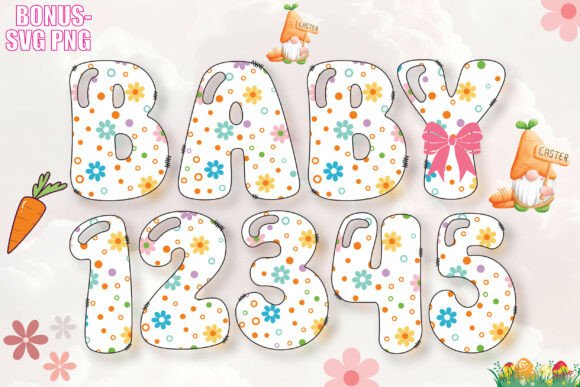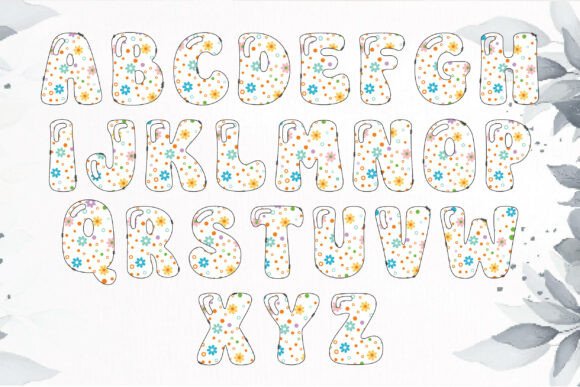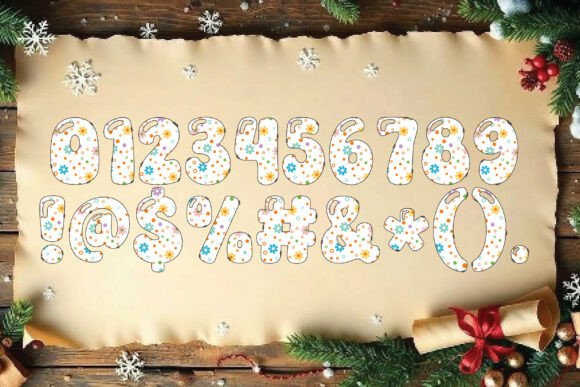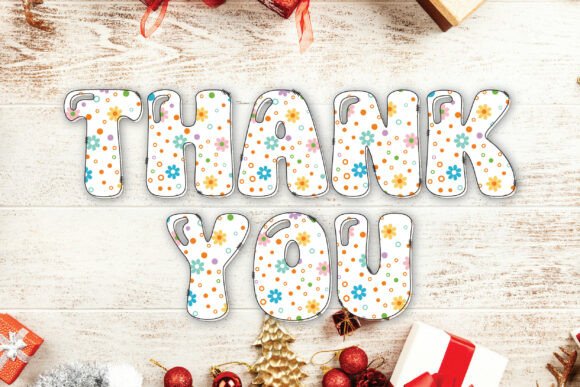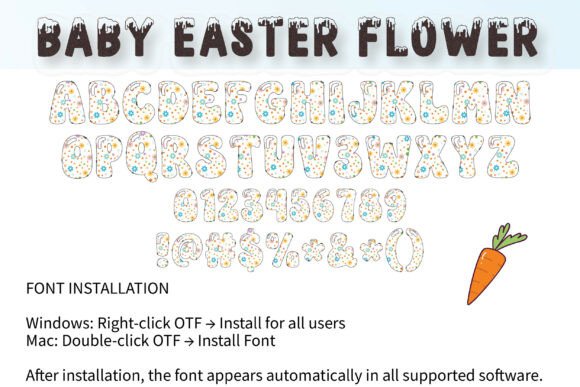
Spring into Easter Magic with the Baby Easter Flower Font
As the Easter season approaches, I find myself browsing through my stash of floral decorations and crafting supplies, searching for the perfect way to infuse my designs with a touch of springtime charm. It’s in these moments that I stumble upon the perfect tool to bring my creative vision to life – a beautiful font that captures the essence of the season. Enter the Baby Easter Flower Font, a delightful alphabet designed to add a soft, floral touch to your Easter projects.
This font is more than just a pretty face; it’s a valuable asset for designers looking to create sweet and elegant holiday designs. With its delicate flower details and spring-inspired style, the Baby Easter Flower Font is perfect for kids’ outfits, Easter invitations, spring decor, printable crafts, planners, and sublimation projects. Whether you’re a seasoned designer or a crafty enthusiast, this font is sure to bring a smile to your face and a touch of magic to your creations.
- Font Family: Baby Easter Flower, a unique, hand-drawn font designed to resemble Easter flowers.
- Character Count: Approximately 550 characters, including uppercase and lowercase letters, numbers, and punctuation.
- Unique Characteristics: The font features delicate, hand-drawn Easter flower motifs, intricate details, and a soft, pastel color palette, making it perfect for Easter-themed designs, invitations, and greeting cards.
Review of Baby Easter Flower Font
Overall, I’d say the Baby Easter Flower Font is a sweet and charming addition to any Easter-themed design project. Here are some of the things that I think work well:
- ✨ The delicate, hand-drawn feel of the font is perfect for creating a whimsical and playful atmosphere.
- ✨ The font’s floral elements add a lovely touch of springtime freshness to any design.
- ✨ The font’s size and weight range make it easy to use in a variety of contexts, from small text to large headlines.
However, I do have a few concerns about the font’s limitations:
- ⚠️ The font’s letterforms can be a bit tricky to read in certain contexts, especially when used at smaller sizes.
- ⚠️ The font’s floral elements can make it difficult to achieve a clean, minimalist look in some designs.
Overall, I think the Baby Easter Flower Font is a lovely addition to any Easter-themed design project. While it may have some limitations, its unique charm and playfulness make it a great choice for designers looking to add a little extra something to their designs.
Use the Baby Easter Flower Font for spring-themed designs, Easter cards, and baby shower invitations.
Baby Easter Flower Font is perfect for:
- Spring-themed designs
- Easter cards and invitations
- Baby shower invitations
- Children’s party decorations